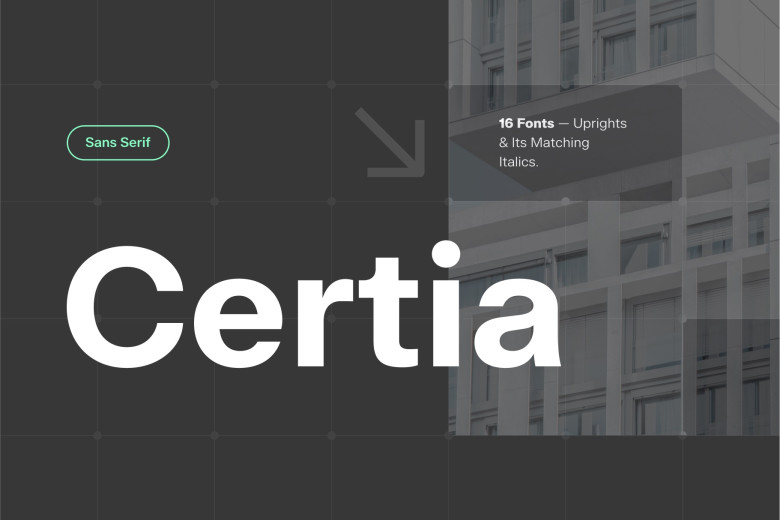
Certia is an elegant sans serif family of fonts that seamlessly marries functionality with style. It contains 16 fonts, including an elegant italic font for maximum accessibility without compromising its elegant appearance. It provides access to over two dozen languages across the world with maximum accessibility without compromising its beautiful look.
Certia can be utilized for editorial, branding and digital interface projects alike. It exudes elegance while remaining easy to integrate within various design contexts. Certia stands out as an elegant and accessible font with its ability to maintain consistency in design and accessibility, making it the ideal choice for communicating messages in an elegant manner.
More than simply a font, Certia serves as an example of fine workmanship making it an invaluable resource for designers searching for timeless typeface options.
Certia Sans Serif Font